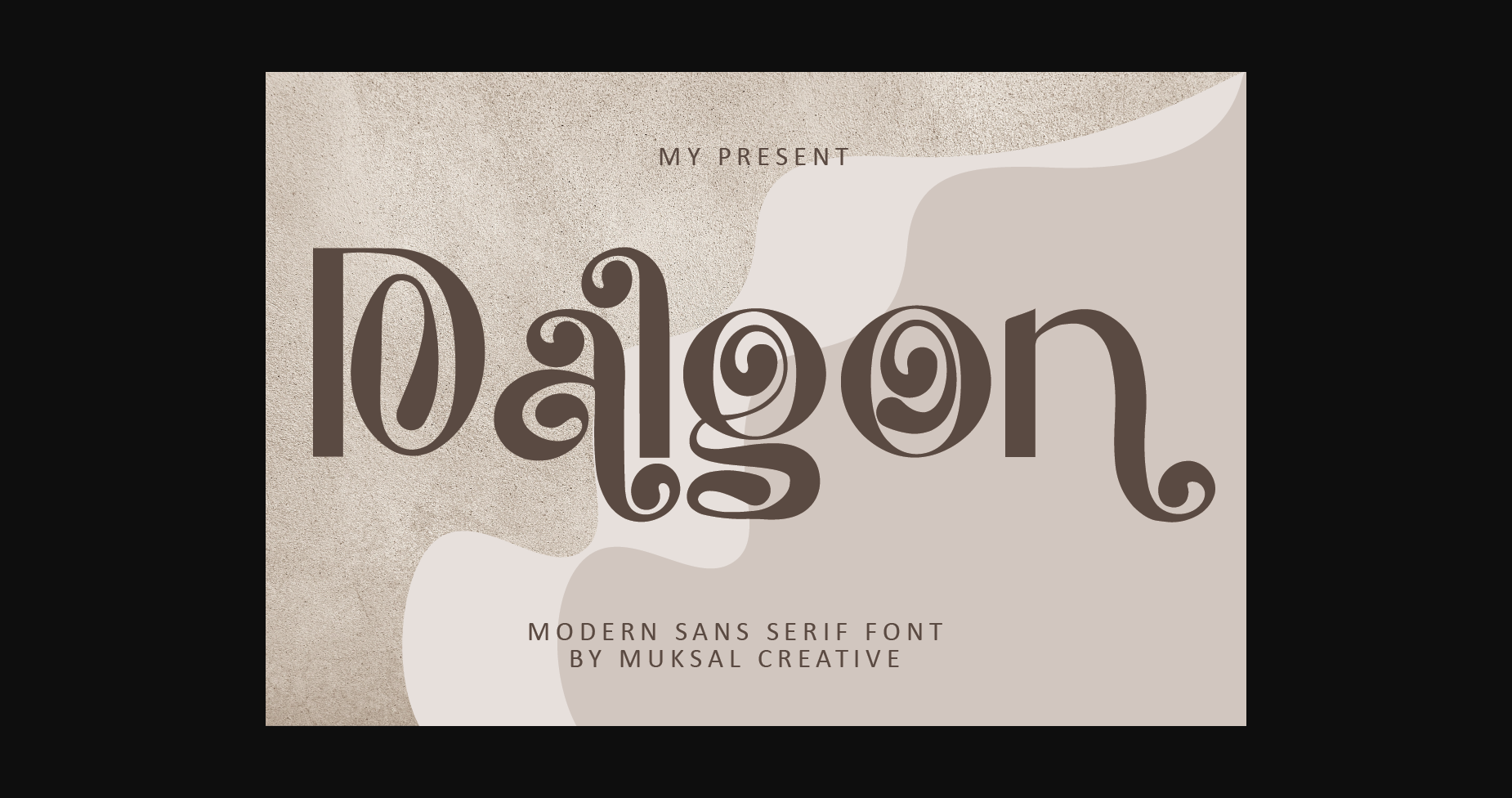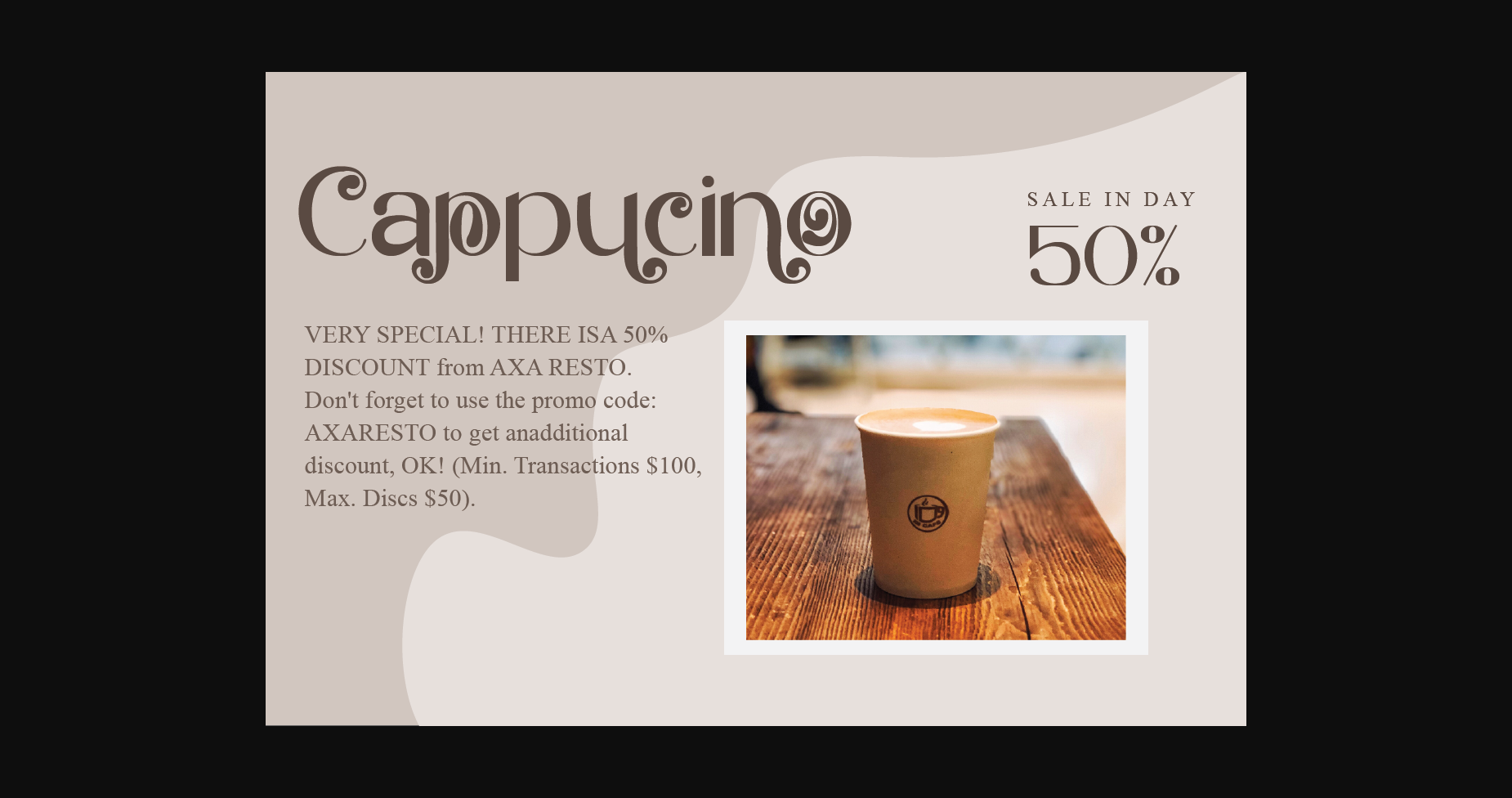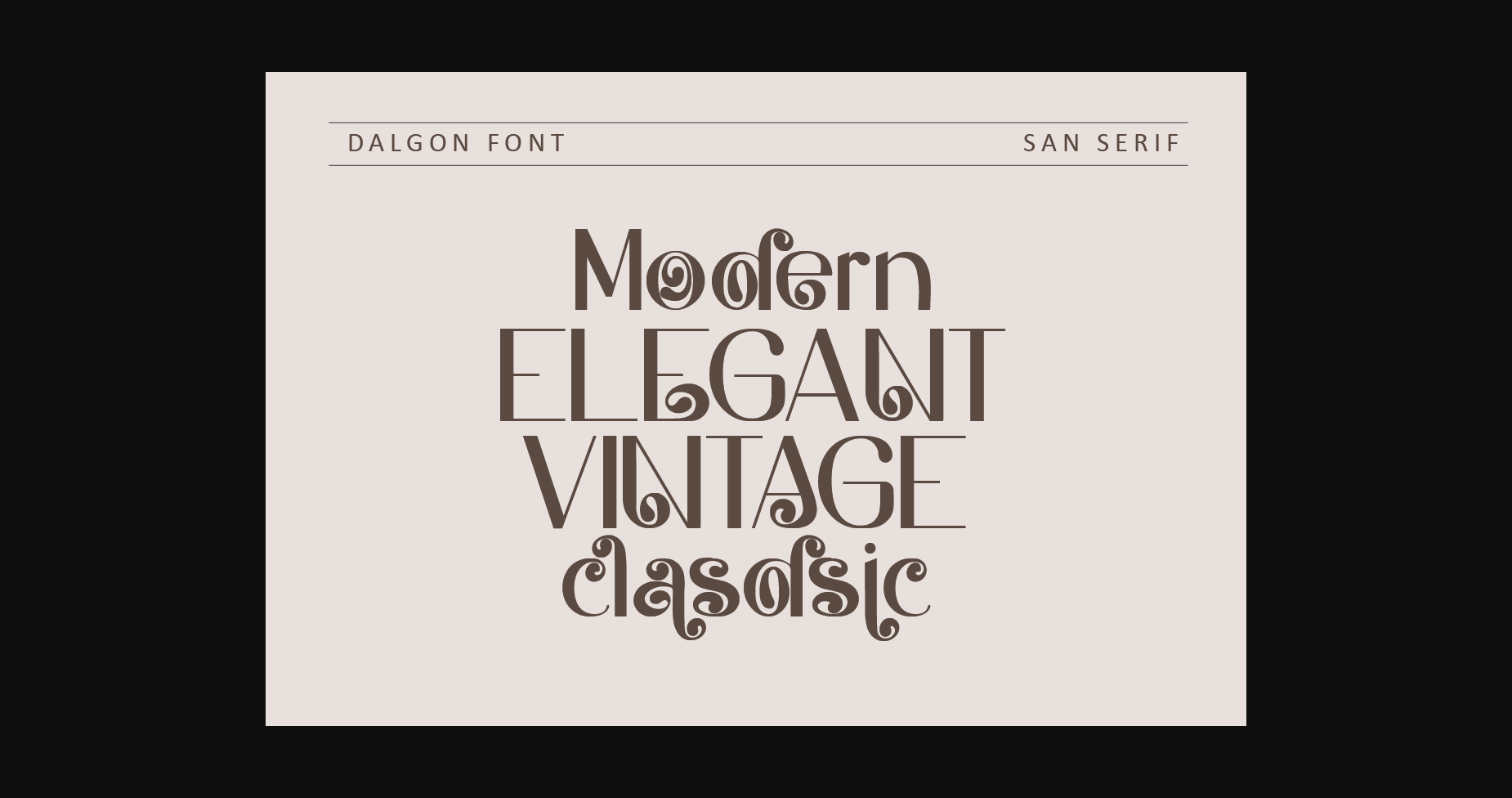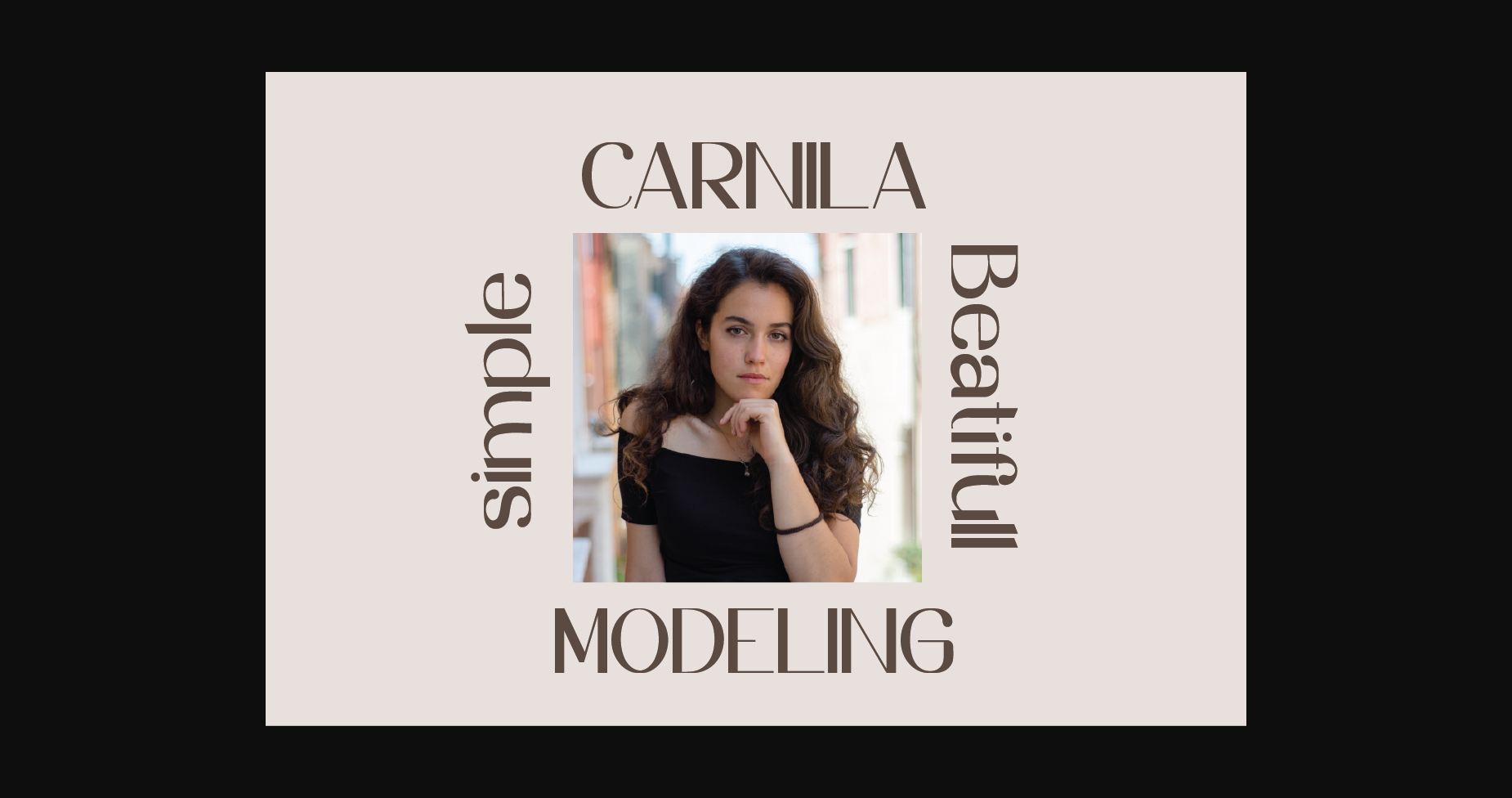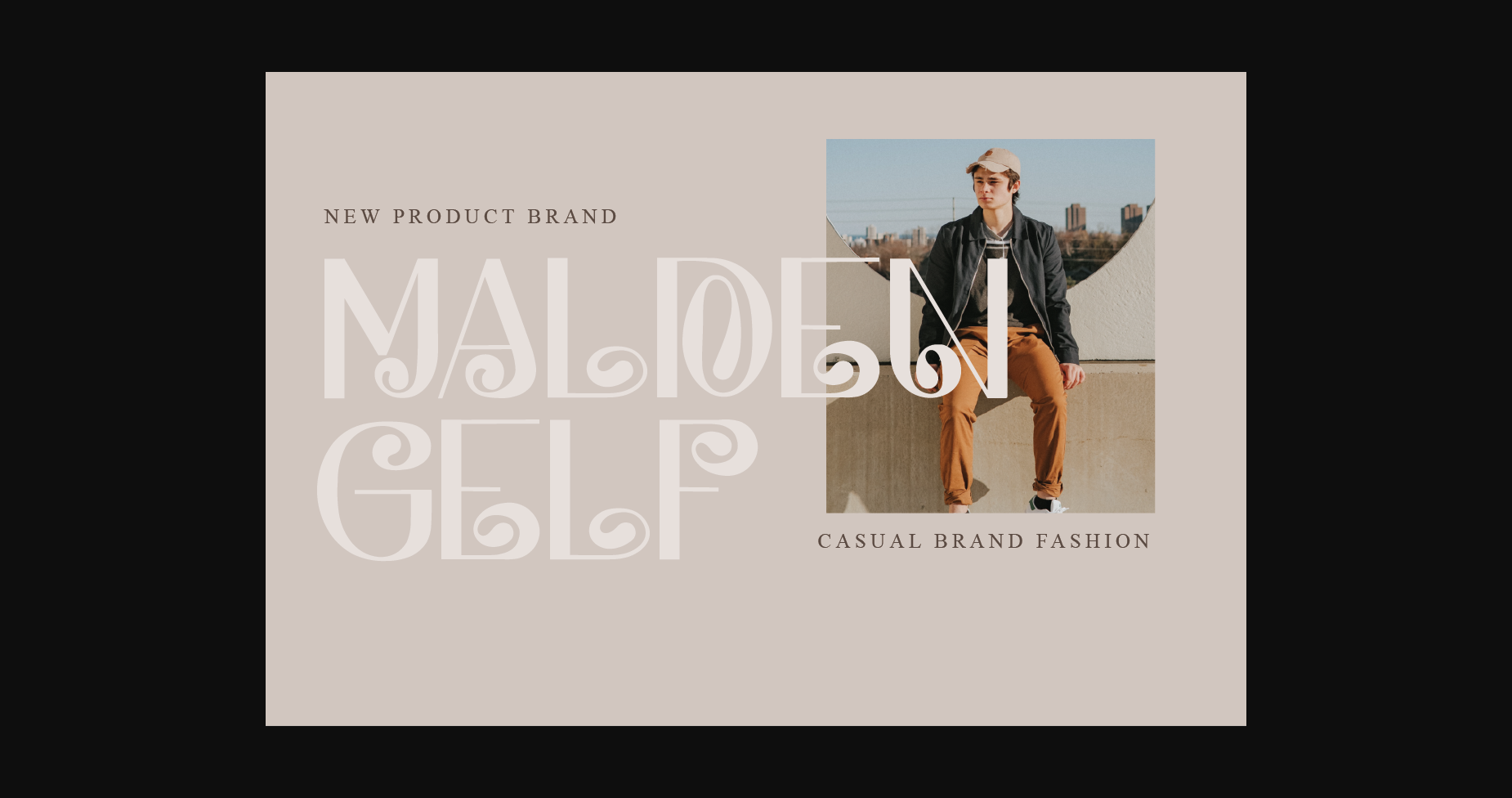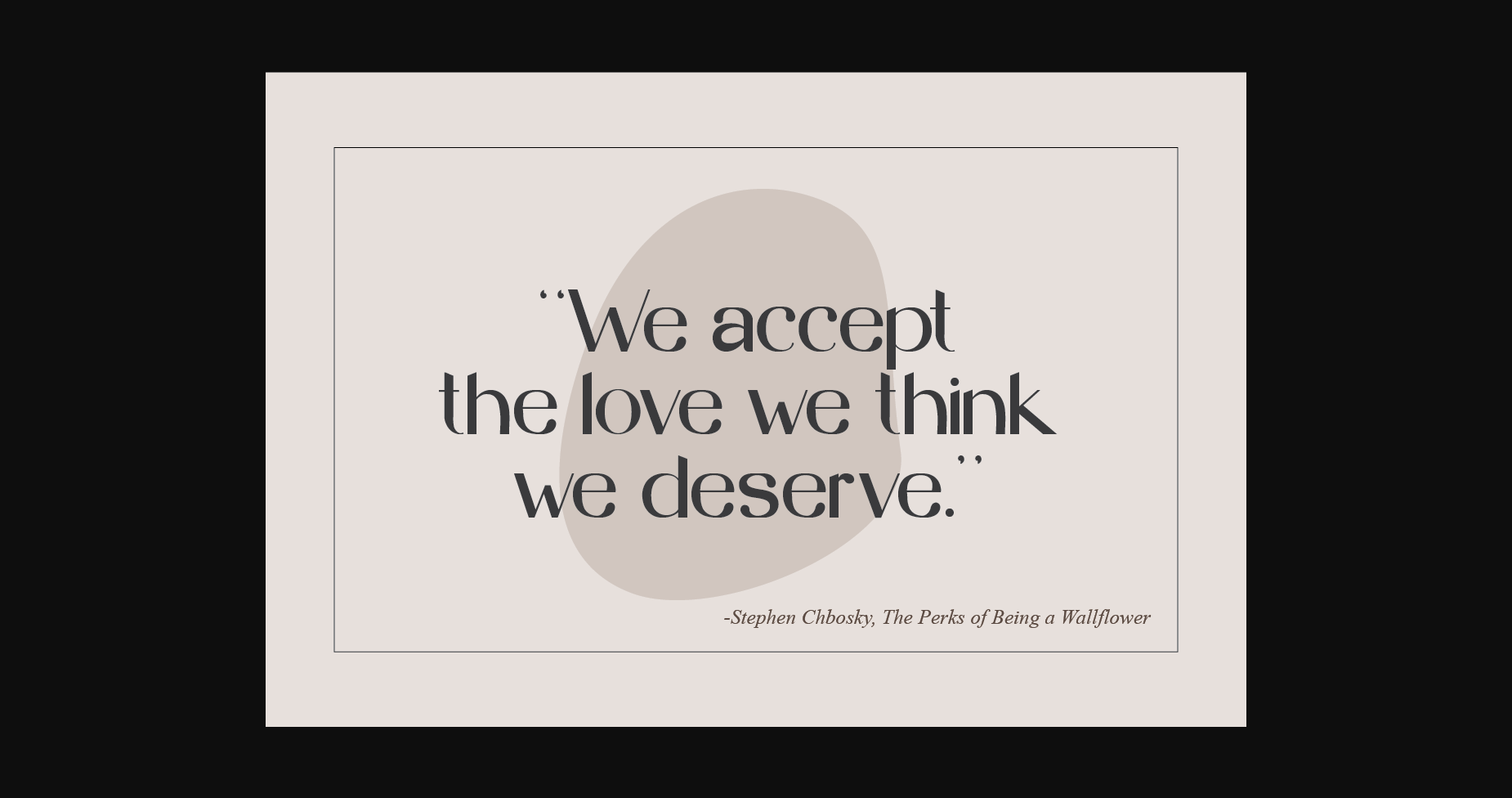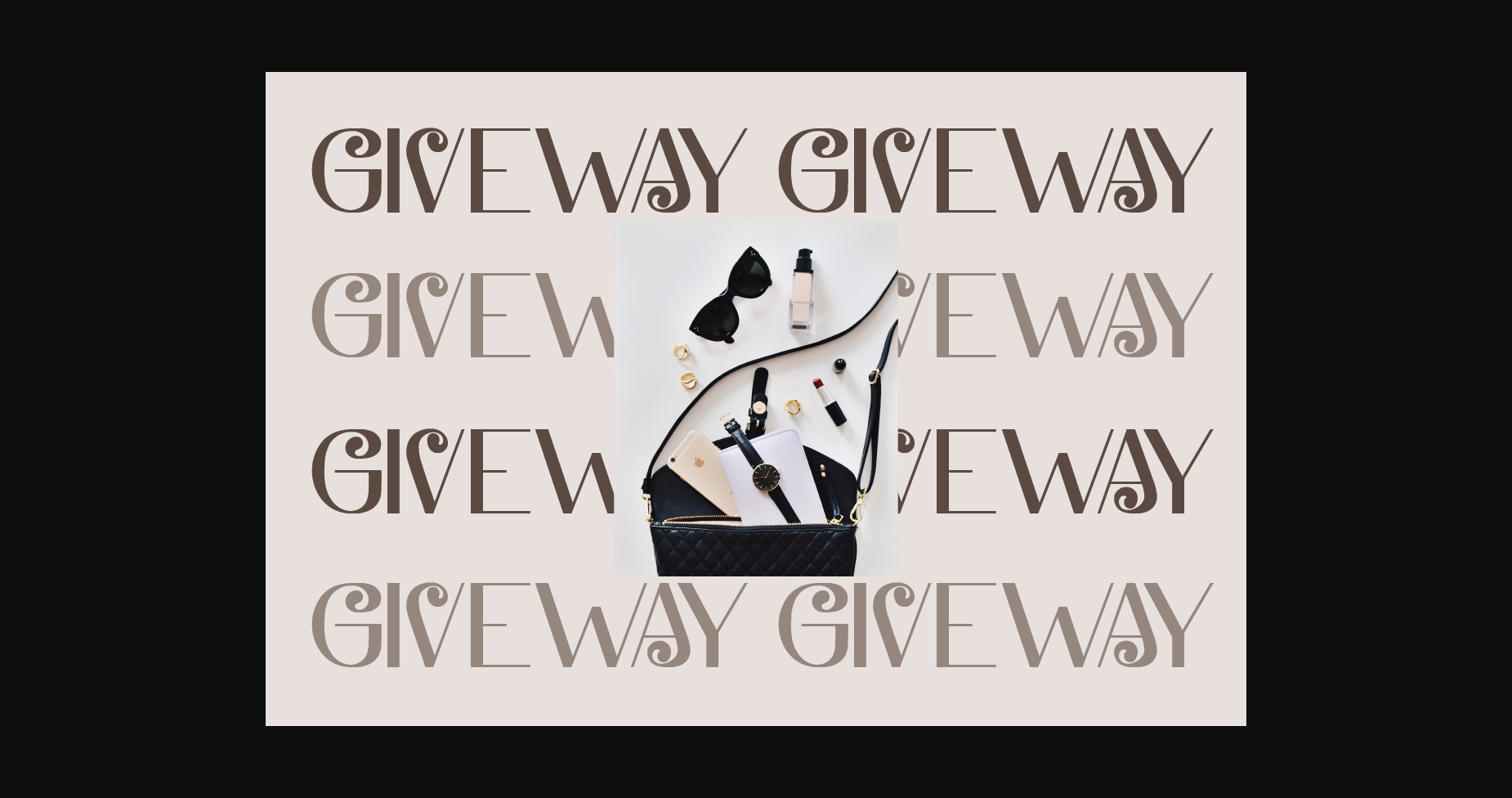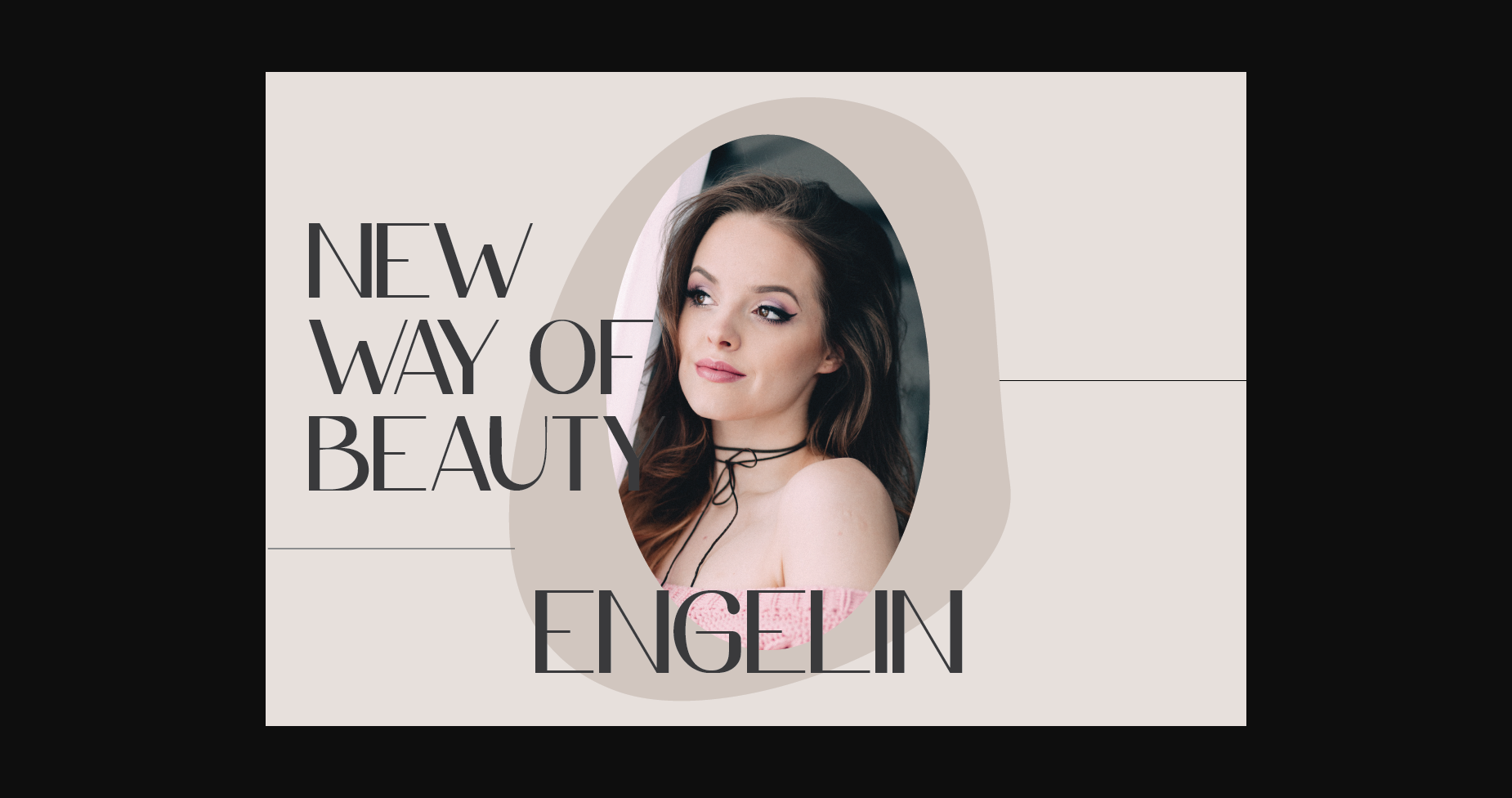
Dalgon Font
About Dalgon Font
Dalgon is a modern sans serif font created especially for projects that need unique and valuable typography! Use it for projects like magazines, banners, stationery, branding, name tags, invitations, and more. This font is PUA encoded, which means you can access all of the glyphs and swashes with ease!